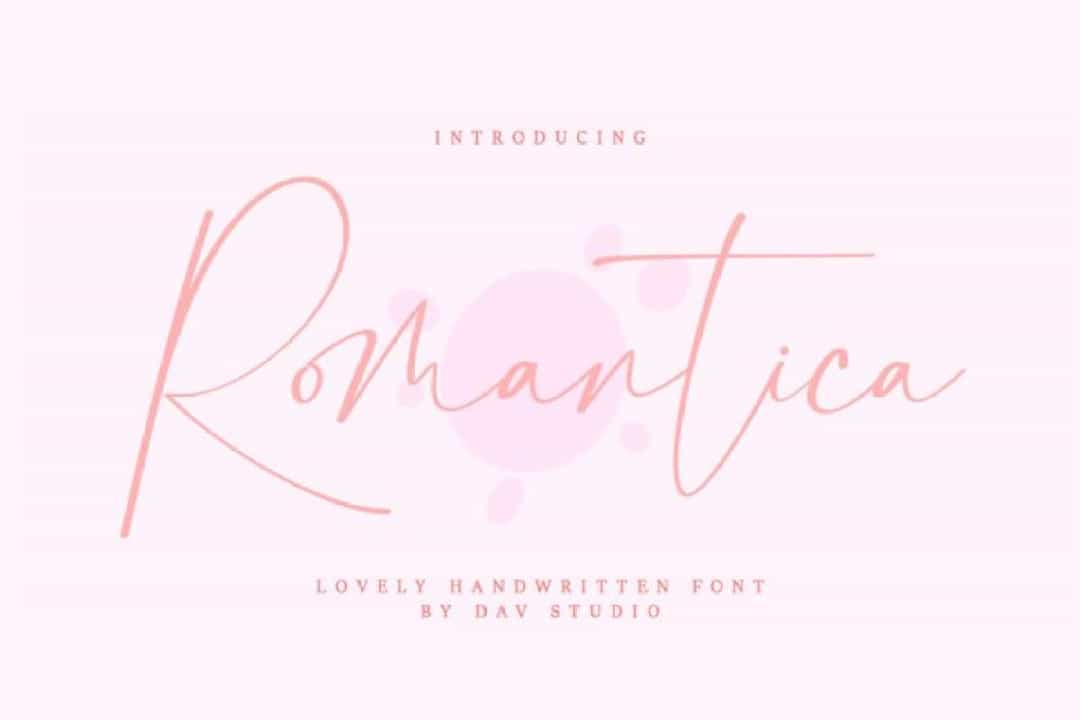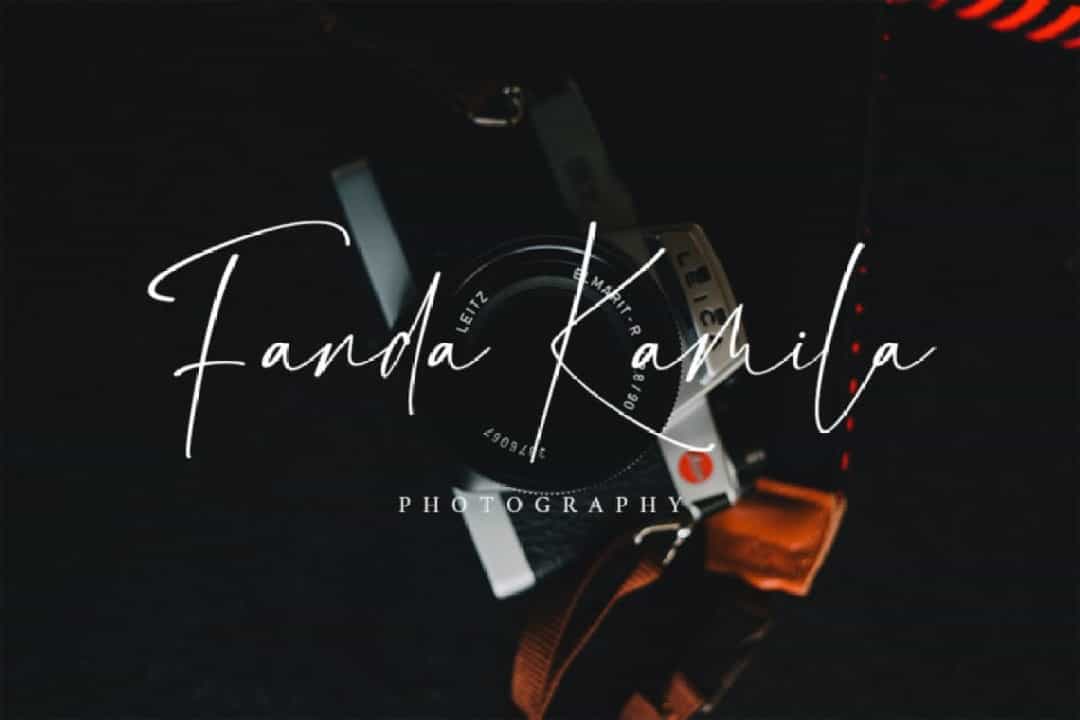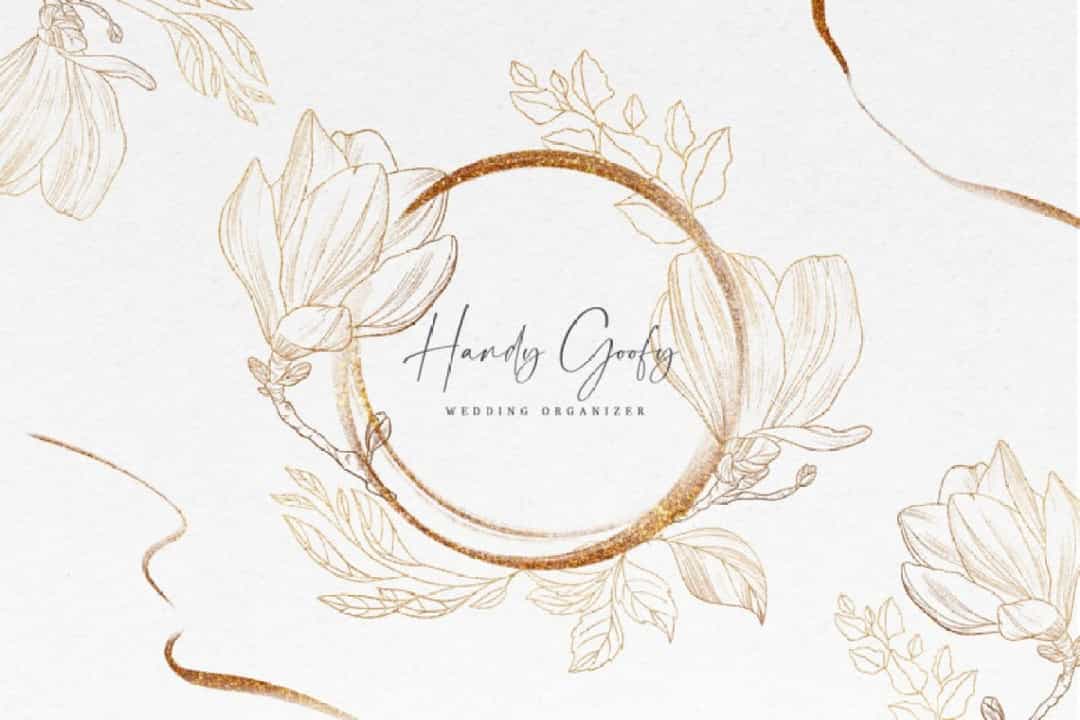
We are glad to introduce Romantica Script font to you. Romantica is a lovely writing font with curls and twirls for decoration and conventional ligatures that imitate your handwriting – excellent for scrapbooking, invitations to weddings or other celebrations, business cards, and other personal video projects on YouTube!